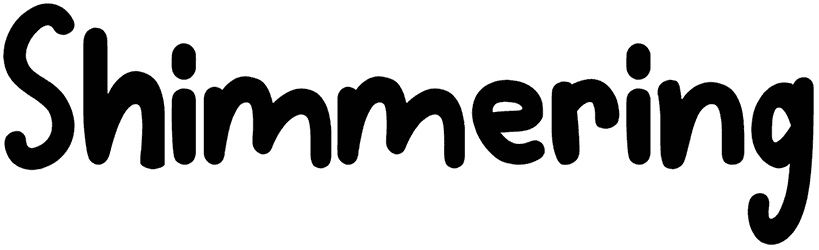
Shimmering Font
If you require a casual and adorable style for your context, try this marker font. With a smooth and modest face, Shimmering can be an appealing item for many subjects and projects with a happy vibe. There is a lack of several uppercase letters, but it can still be a unique illustration for kids’ posters, school designs, apparel, and the like.